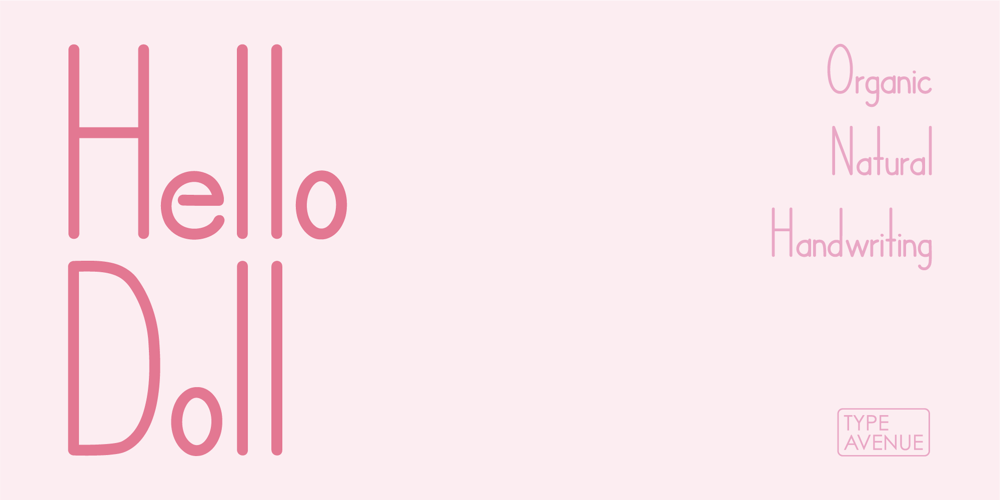
Hello Doll
Hello Doll font
Hello Doll Font Family was designed by Jess J and published by Type Avenue. Hello Doll contains 1 styles and family package options. Looking for a clean and feminine type? This font is perfect to use for branding in a bistro or even for doll or toy packaging. It’s tall and neat styling give this font a stylized yet organic look.